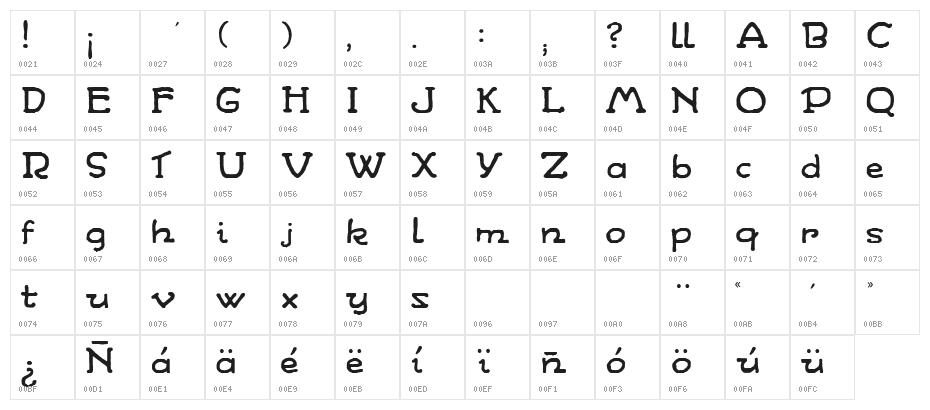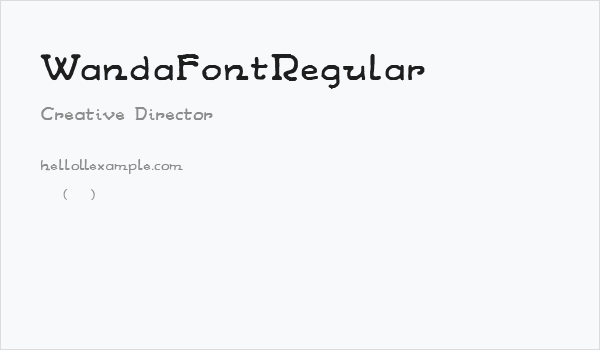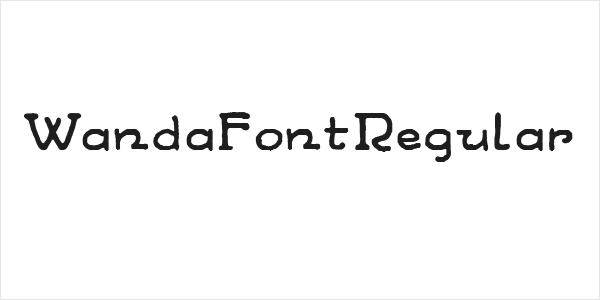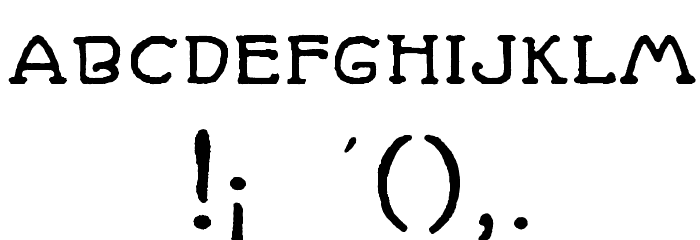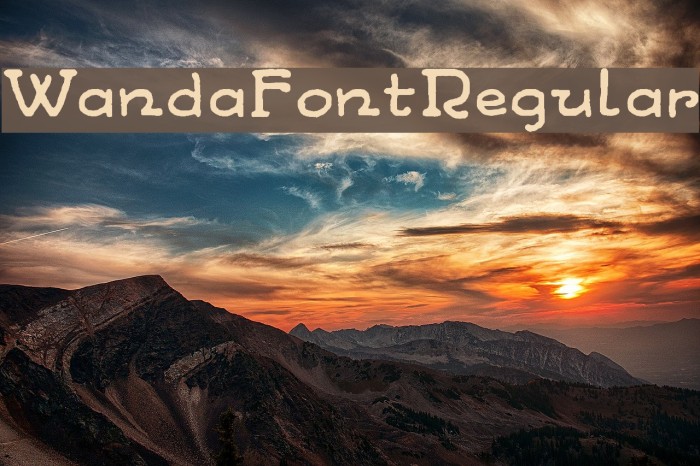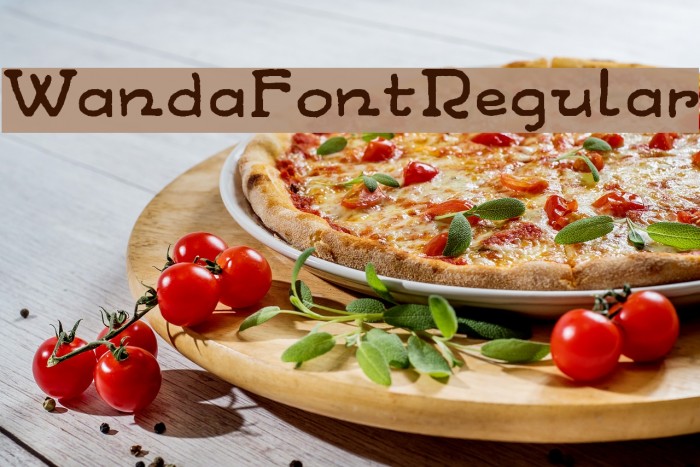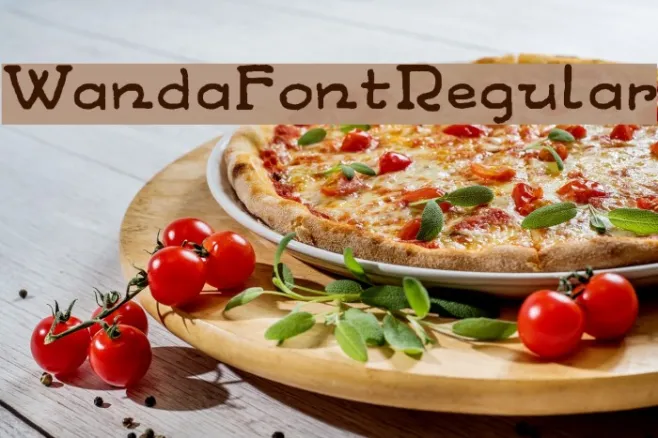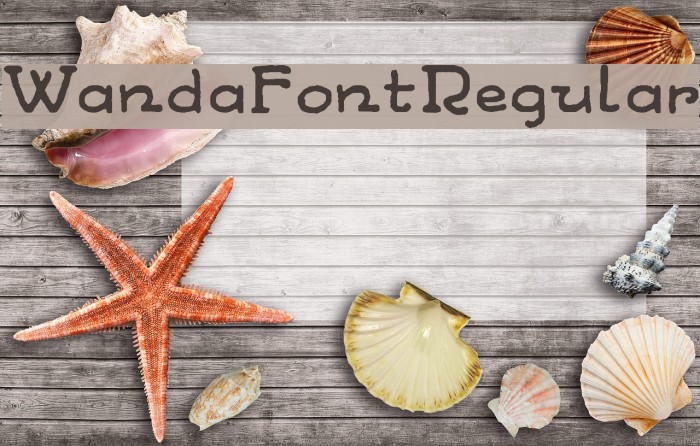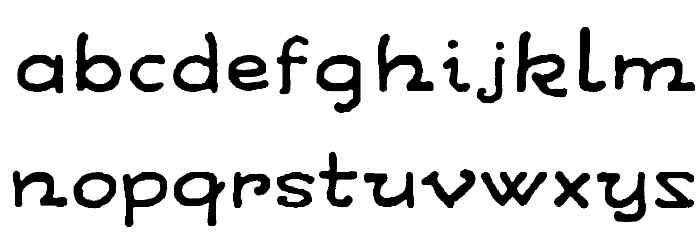
WandaFontRegular Font
WandaFontRegular Description
This font features a playful and slightly irregular style, reminiscent of hand-drawn lettering. The characters have a whimsical and organic feel, with uneven strokes and a casual appearance. The uppercase and lowercase letters maintain a consistent style, with rounded edges and a slightly wavy baseline. The numerals and special characters follow the same playful design, making the font suitable for creative and informal projects. Its unique character shapes add a touch of personality and charm, making it ideal for designs that require a friendly and approachable look.
| Proposed Projects | Ideal for children's books, greeting cards, playful branding, and creative posters. |